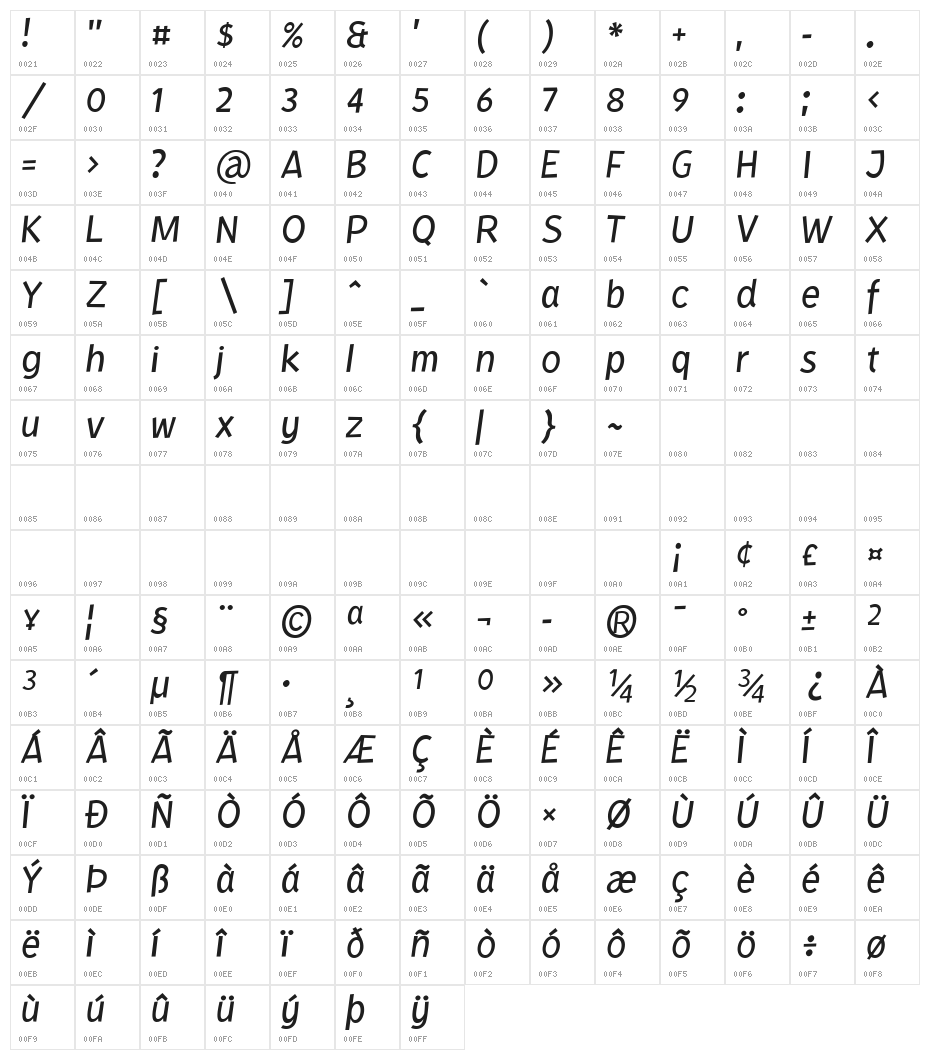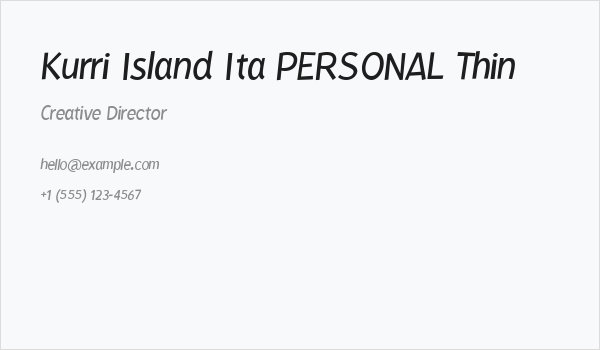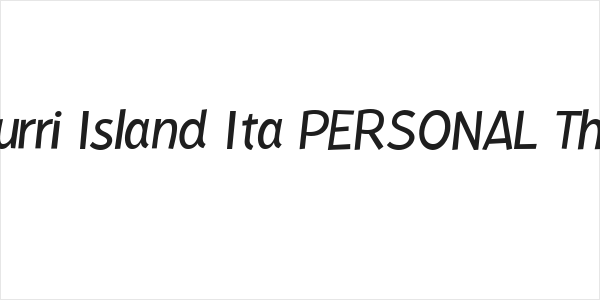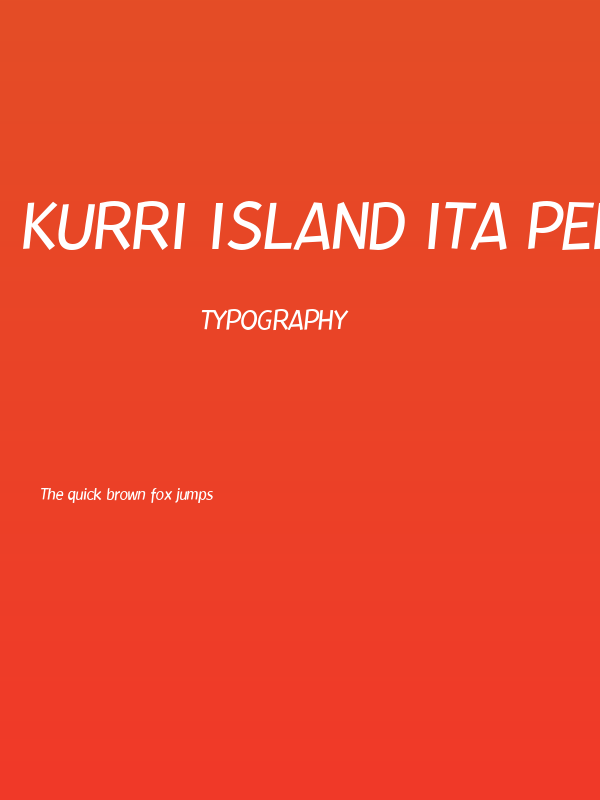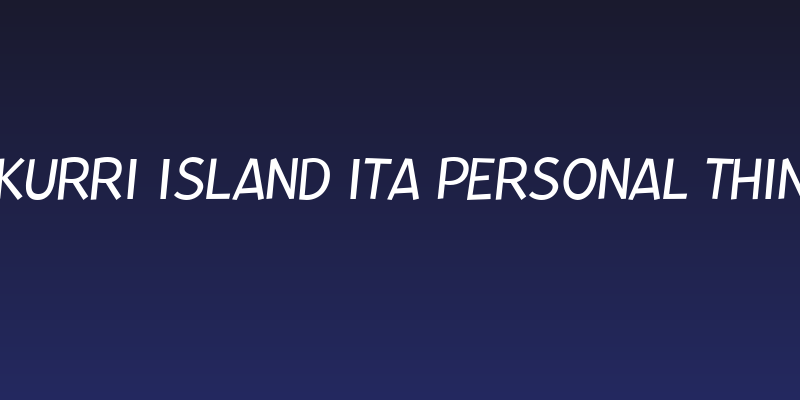
Kurri Island Ita PERSONAL Thin Font
Kurri Island Ita PERSONAL Thin Description
This font features a sleek and modern design with a slight italic slant, giving it a dynamic and elegant appearance. The characters are uniformly thin, contributing to a light and airy feel. The uppercase and lowercase letters maintain a consistent style, with smooth curves and clean lines. The numerals are clear and legible, matching the overall aesthetic. Special characters are well-integrated, ensuring versatility in various applications. The font's thin weight and italic style make it suitable for projects that require a sophisticated and contemporary look.
| Proposed Projects | Ideal for fashion magazines, modern branding, elegant invitations, and minimalist web design. |